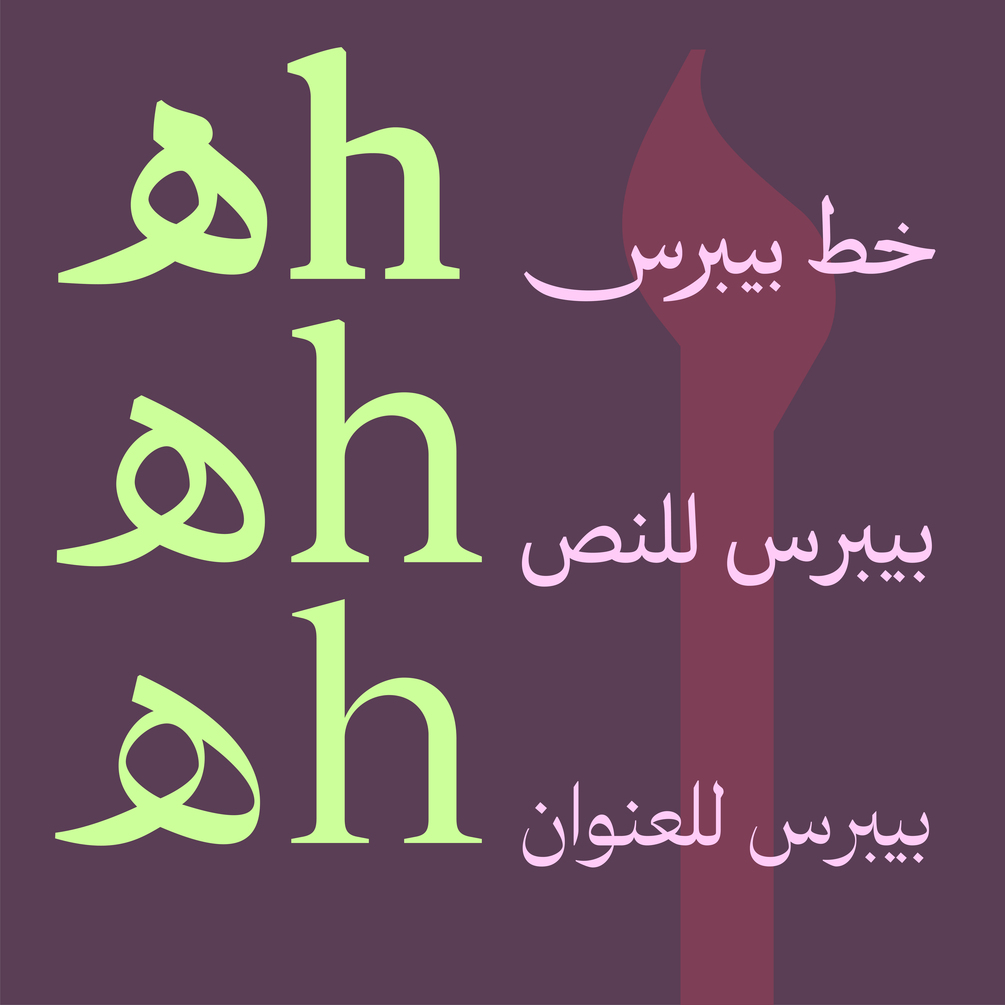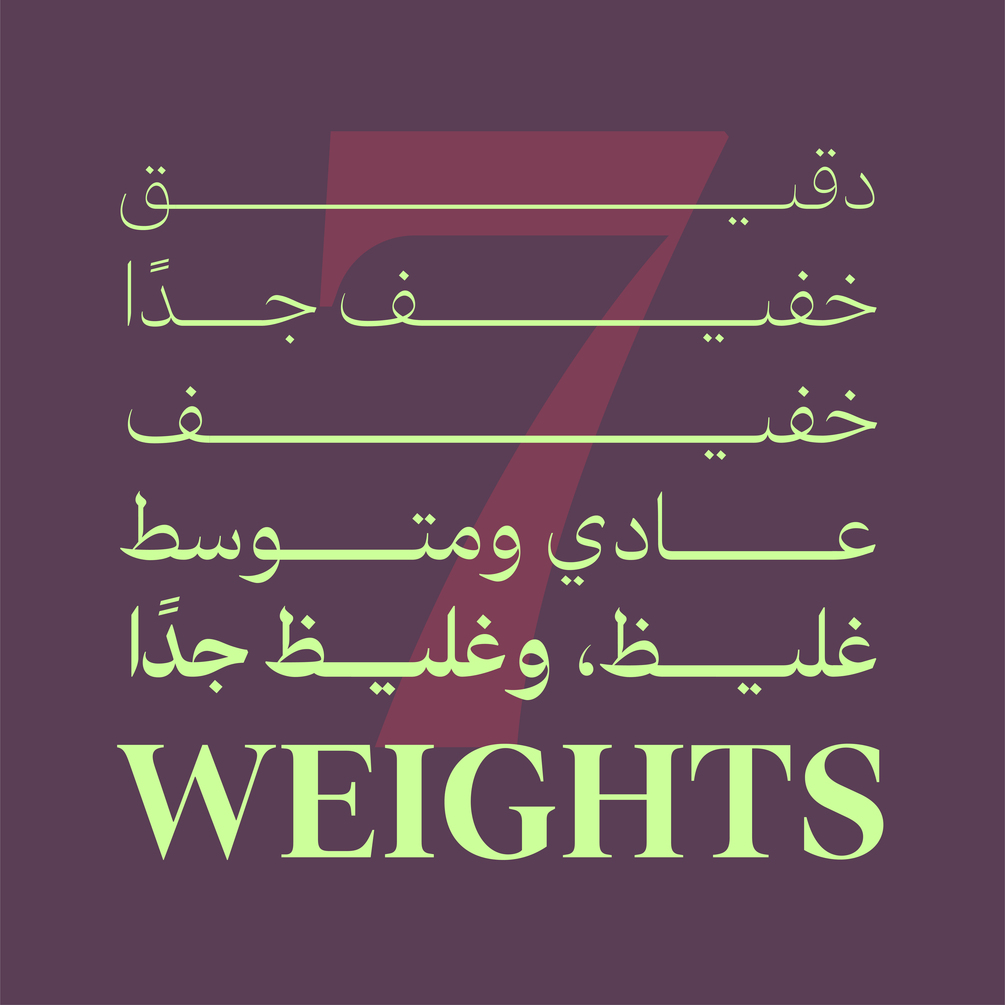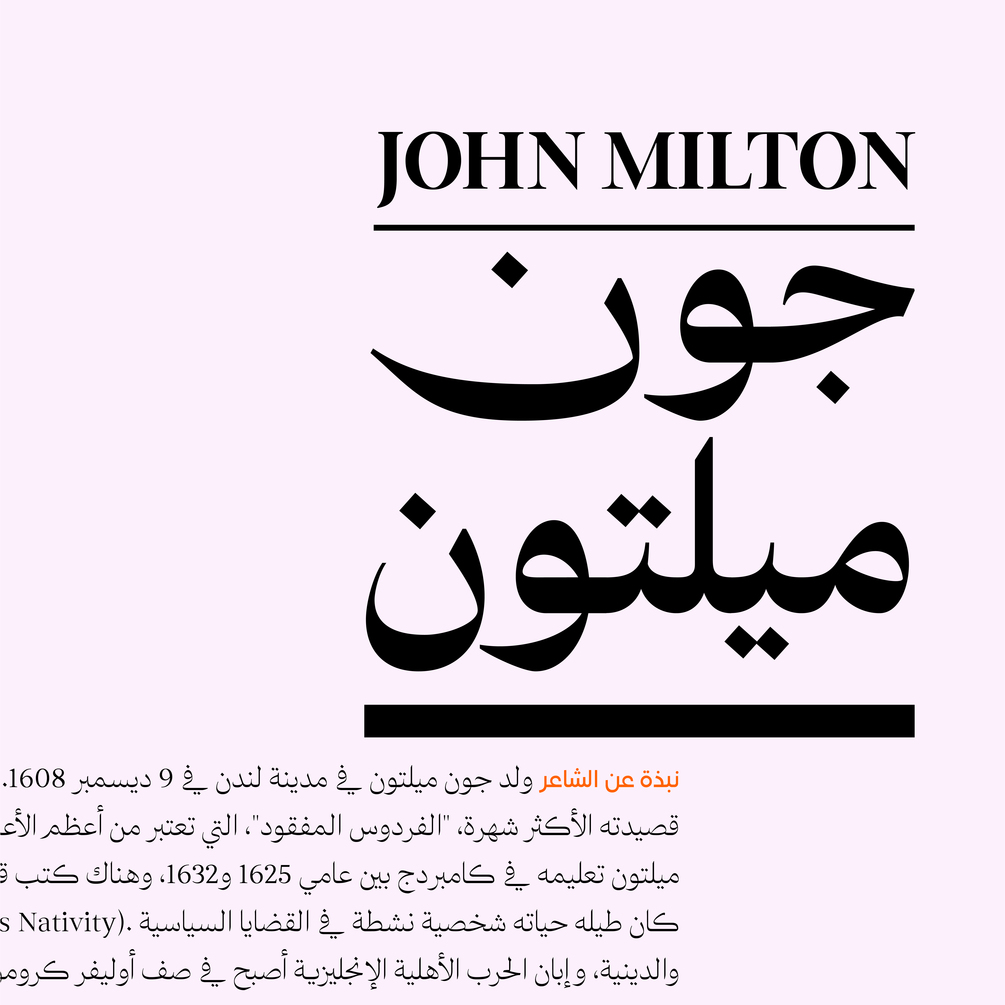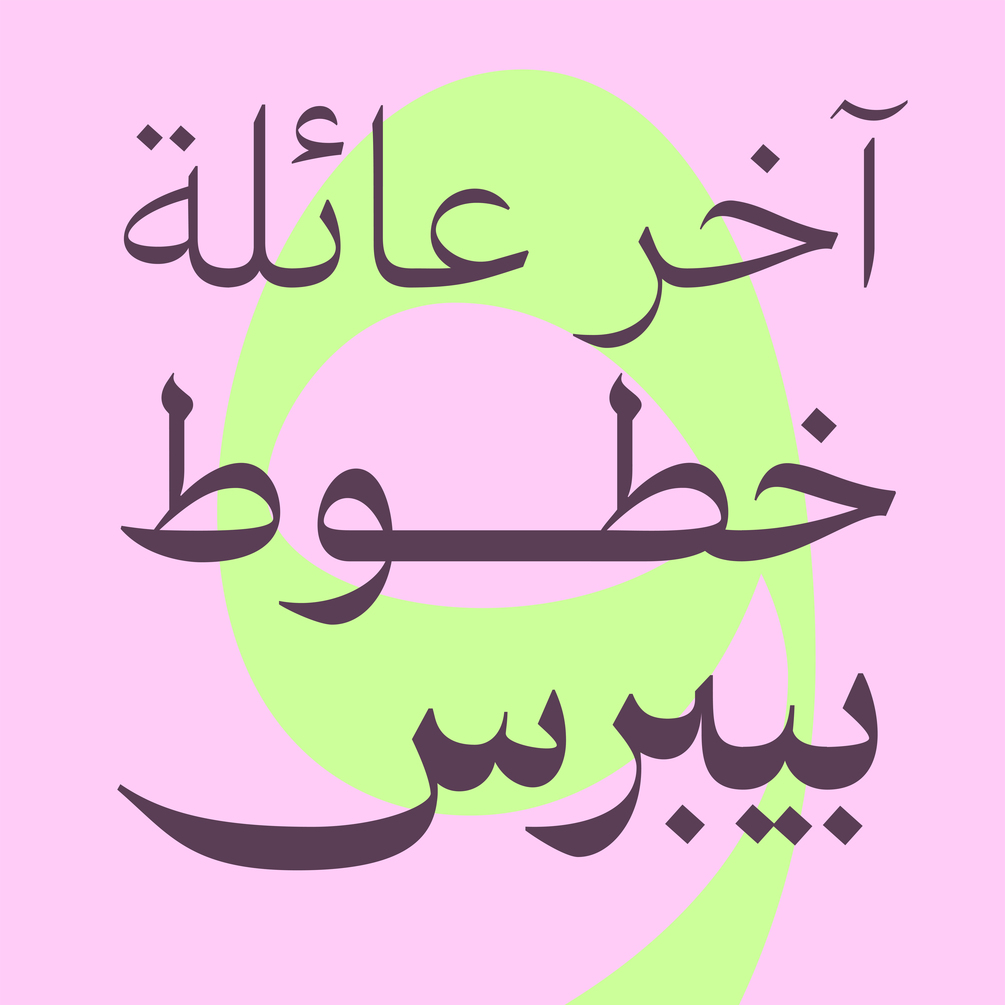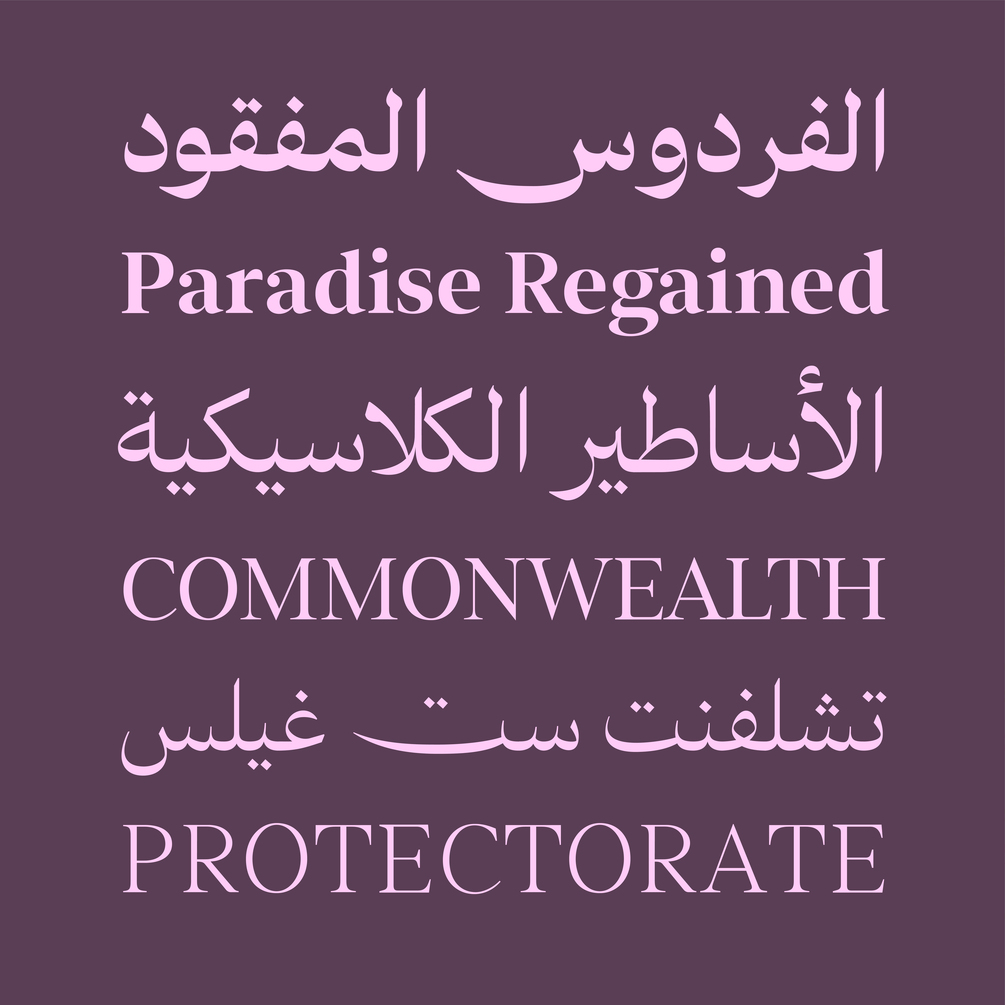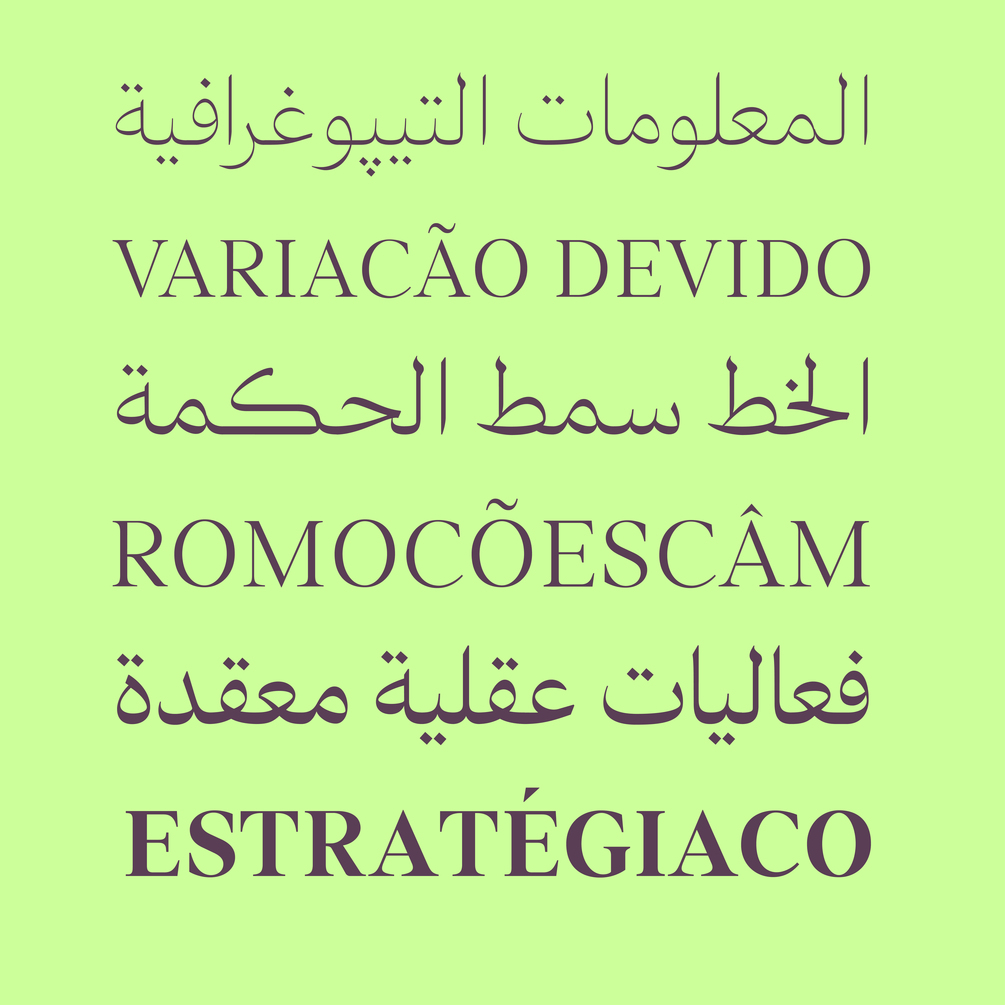
HT Baybars Displayـ
Baybars Display is an integral component of the comprehensive Baybars type system. This refined and dynamic Naskh typeface seamlessly integrates various unique elements with timeless forms, making it a perfect choice for magazine editorials, titles, and beyond.
Supported Languages: Arabic, Persian, Urdu, North-African Arabic, Kurdî, & Turkish.
OpenType Features: ccmp, Contextual Alternates, Stylistic Alternates, Standard Ligatures, Swash, Dictionary Ligatures, Required Ligatures.